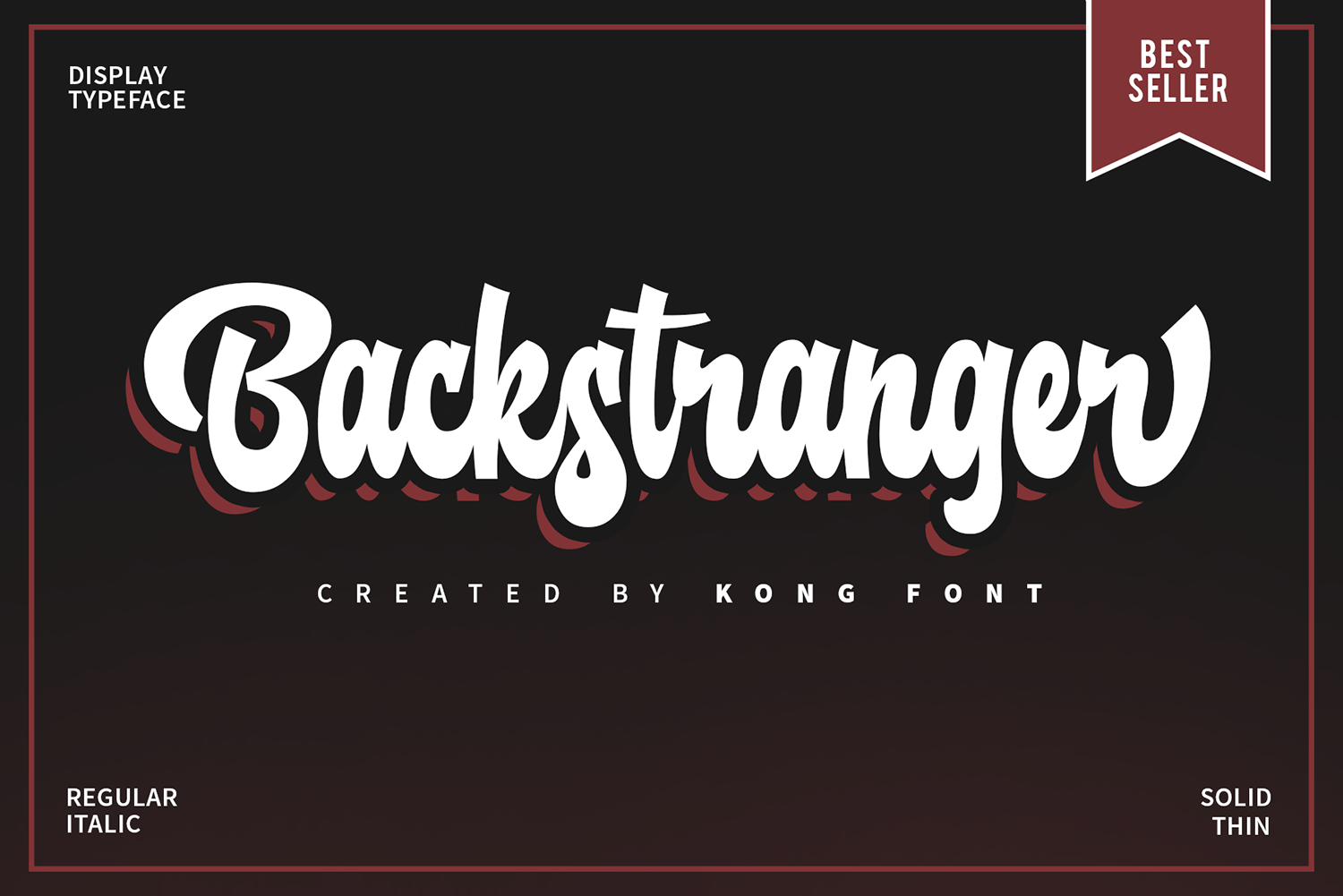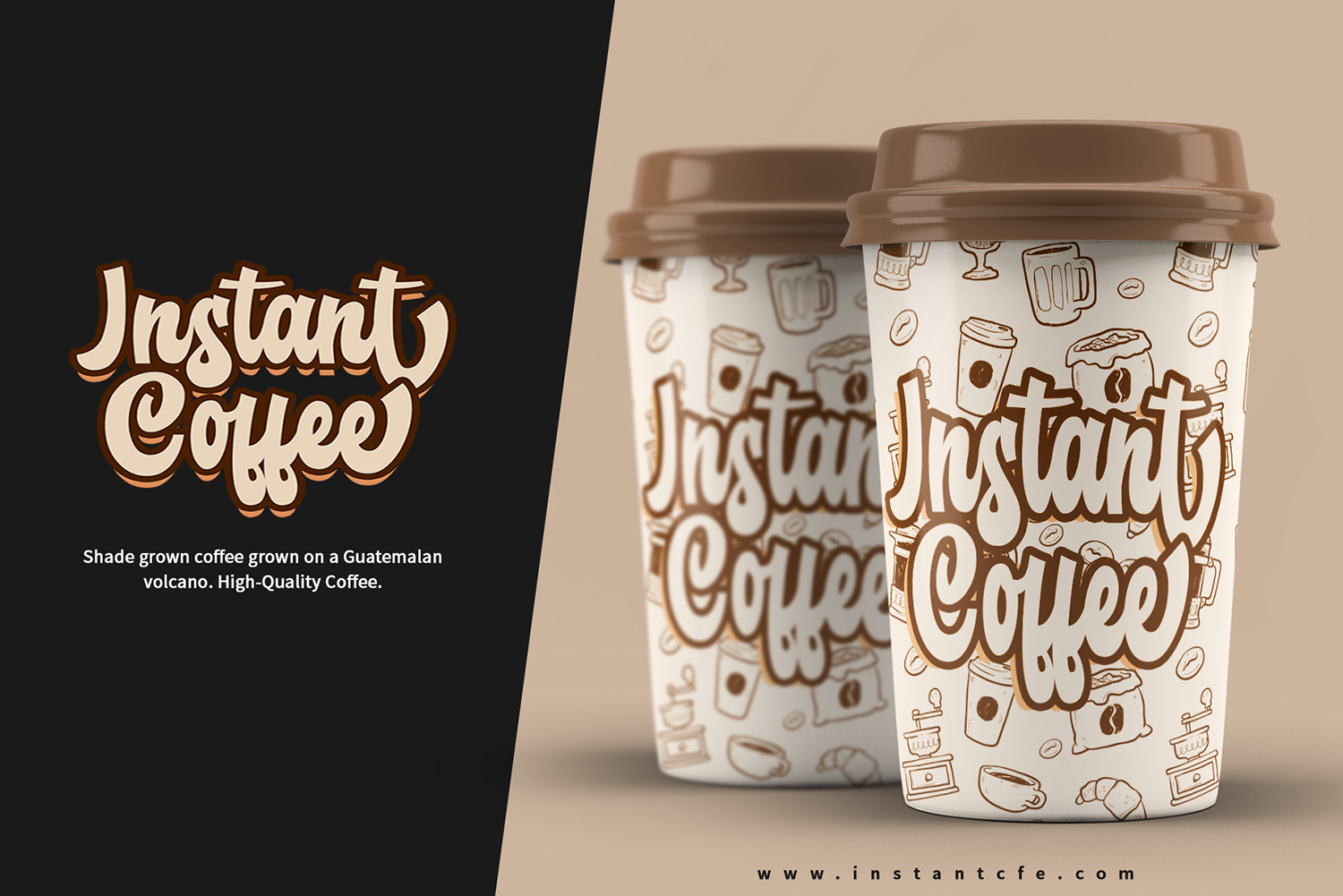
Backstranger is a bold, playful script font with a strong, lively personality. Its thick strokes and smooth curves create an inviting, handcrafted feel, ideal for eye-catching headlines, branding, and creative projects that seek a fun yet confident vibe. This font works perfectly for logos, packaging, and posters where a friendly and energetic style is needed.
Backstranger Font
About Backstranger Font
| Font family | Backstranger Font |